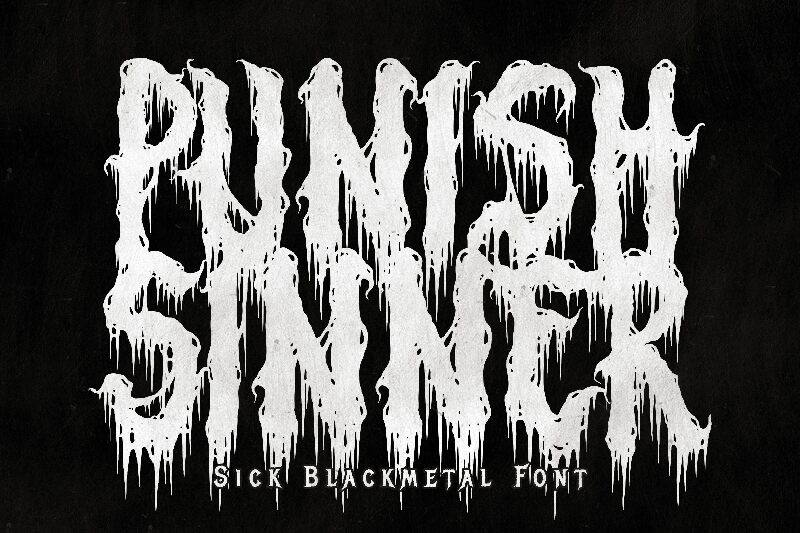
Punish Sinner Horror
Punish Sinner Horror font by Lettersiro Studio is a free scary display font. Built to summon dread on sight, its letters look clawed from black tar—jagged tops, long drips, and a cramped, frantic rhythm that reads like a scream. The texture feels wet and feral, so headlines hit hard without needing effects or overlays.
Using Punish Sinner Horror, you’ll nail horror movie posters, haunted house flyers, slasher game titles, YouTube thumbnails, metal band merch, escape-room signage, and dark book covers. This free font shines largest—think towering sizes with a touch of extra tracking. Pair it with a clean, neutral sans-serif to keep subheads readable while the title does the damage.